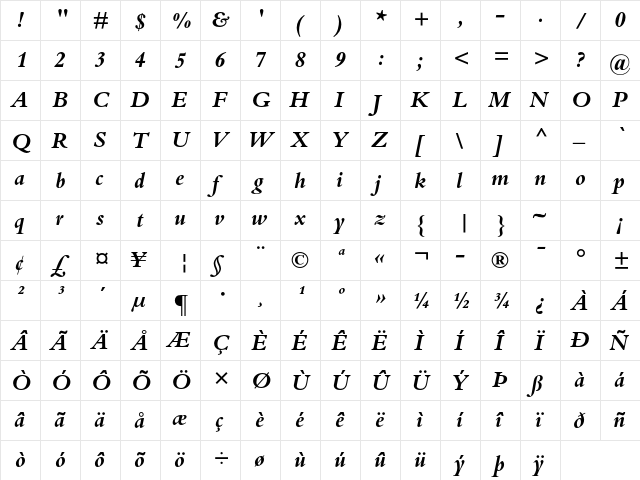
Bembo Std Bold Italic
| Designer | Stanley Morison, Monotype Staff |
Design Context for Bembo Std Typeface
Bembo Std offers clean, dependable letterforms without strong stylistic allegiance, making it a practical choice for designers who need flexibility. The slanted form adds forward momentum and visual energy. The heavy weight commands attention and anchors typographic hierarchies.
Pro Tip: Try Bembo Std for annotation and caption copy alongside an upright companion — the contrast in angle creates a dynamic but ordered typographic system.